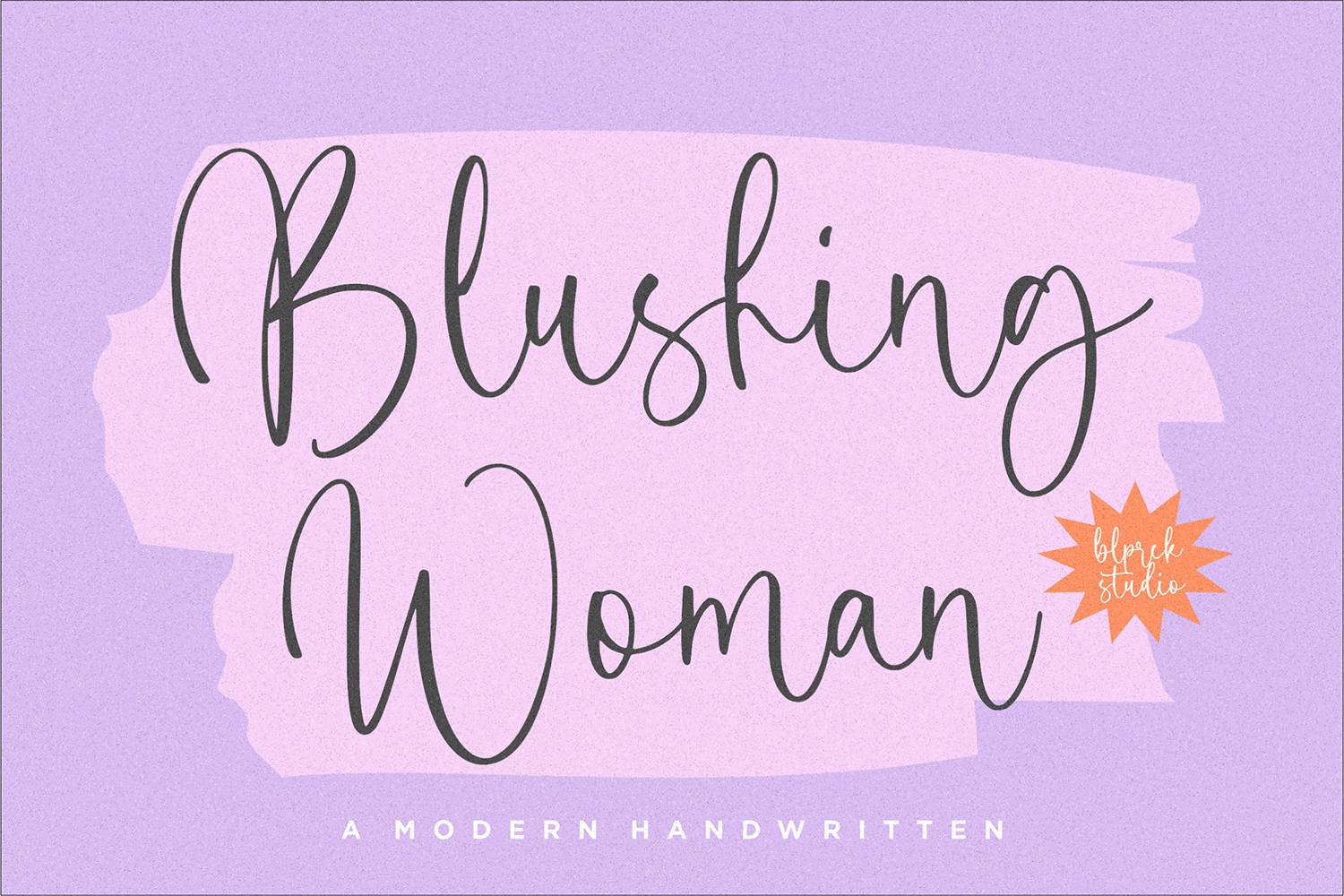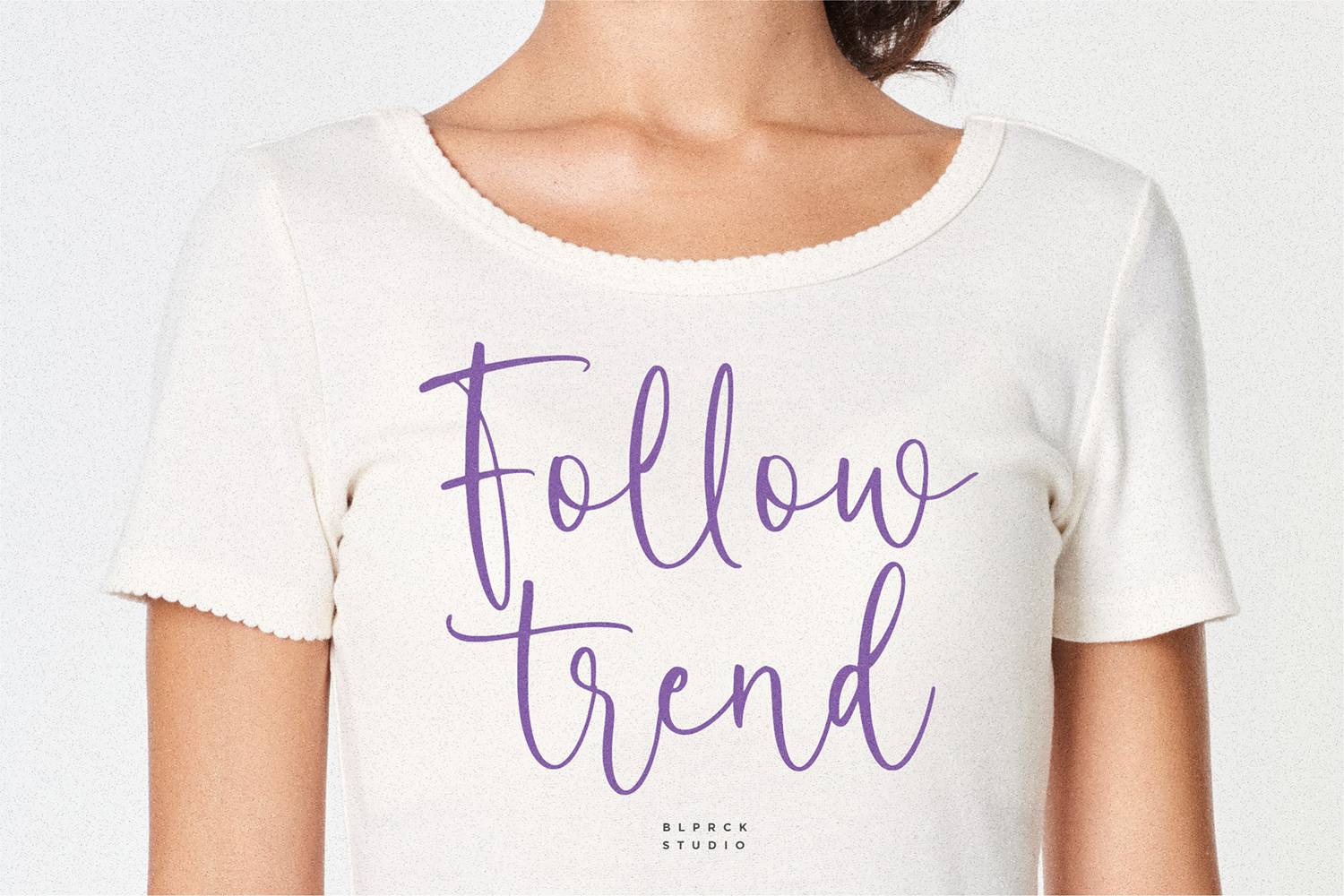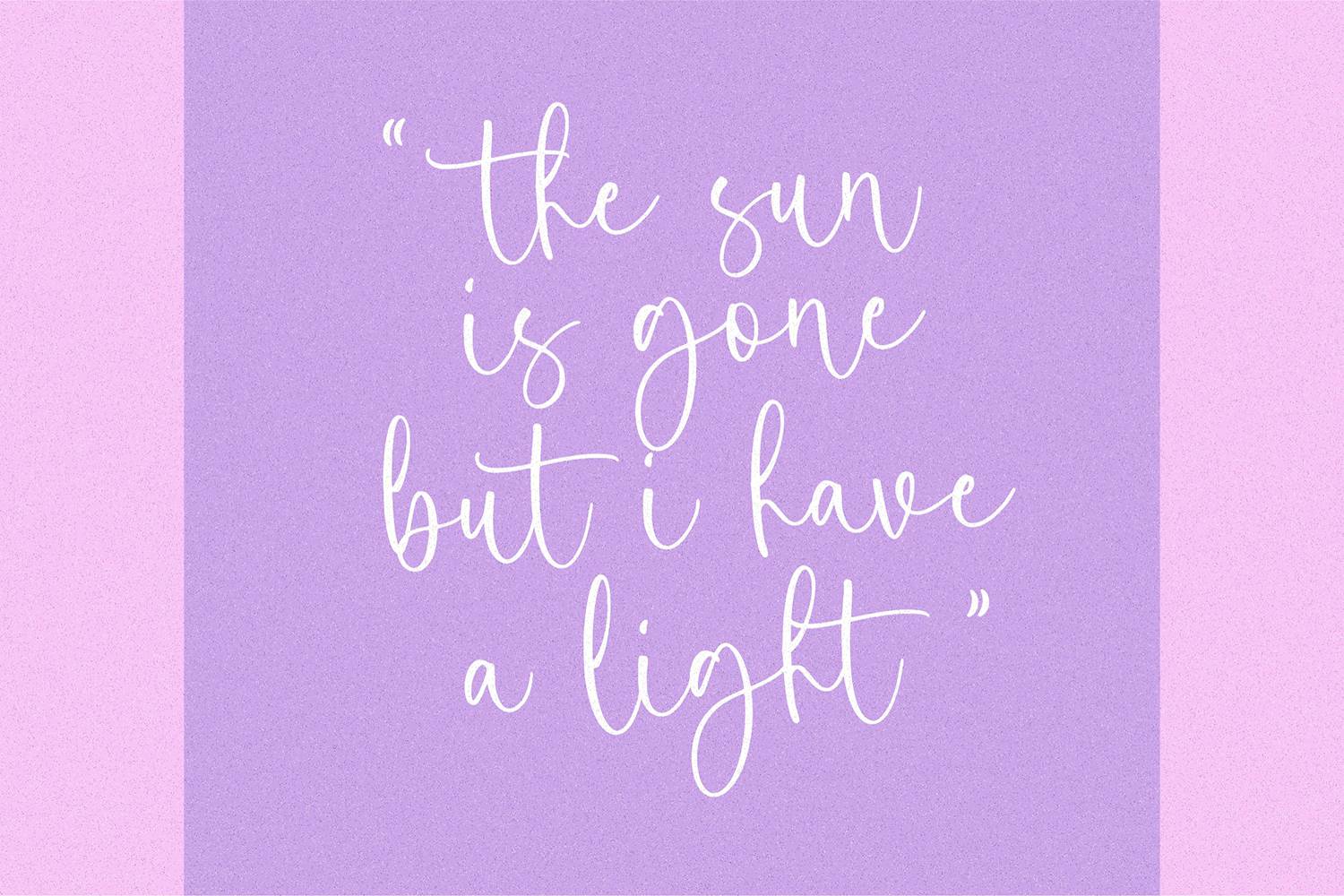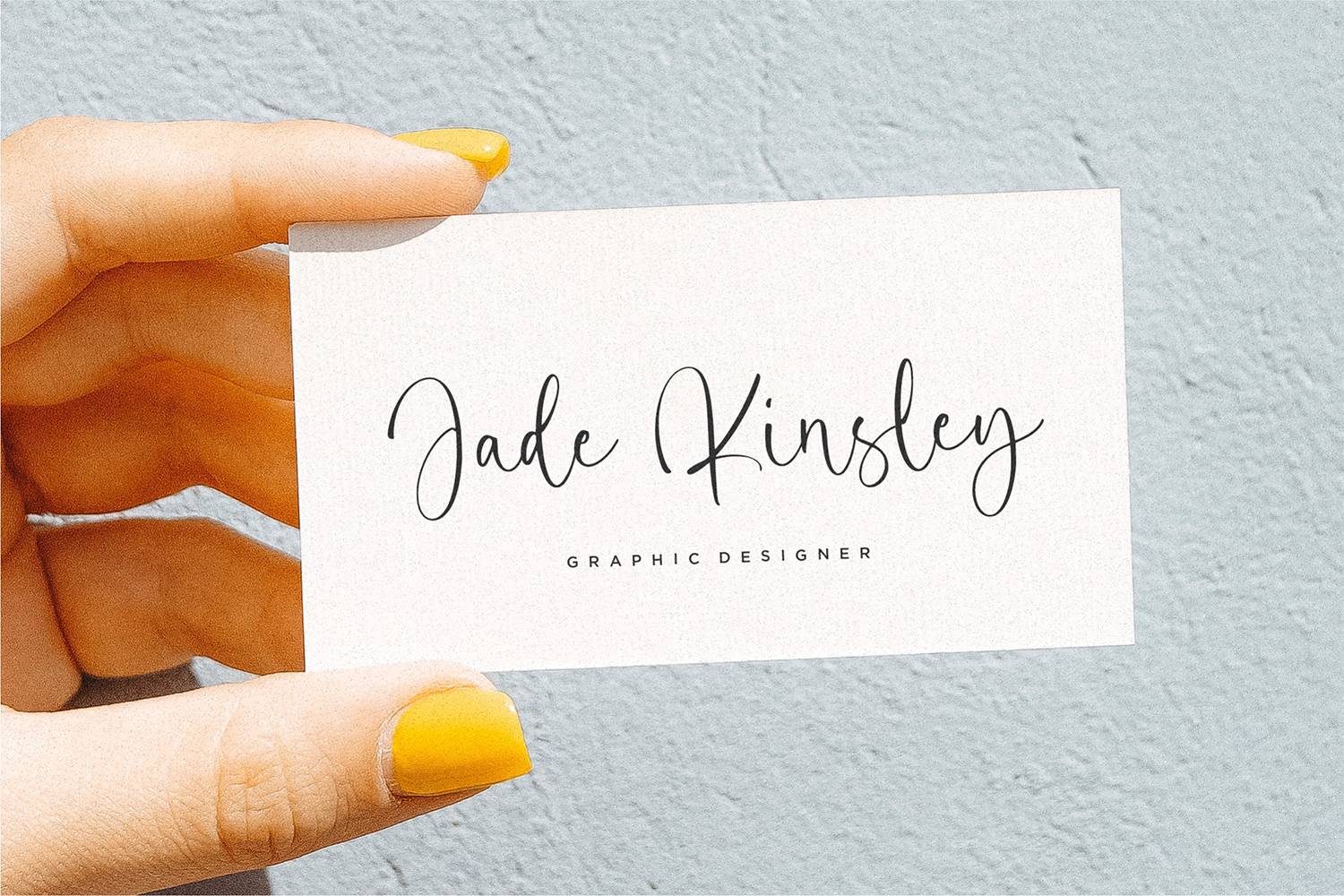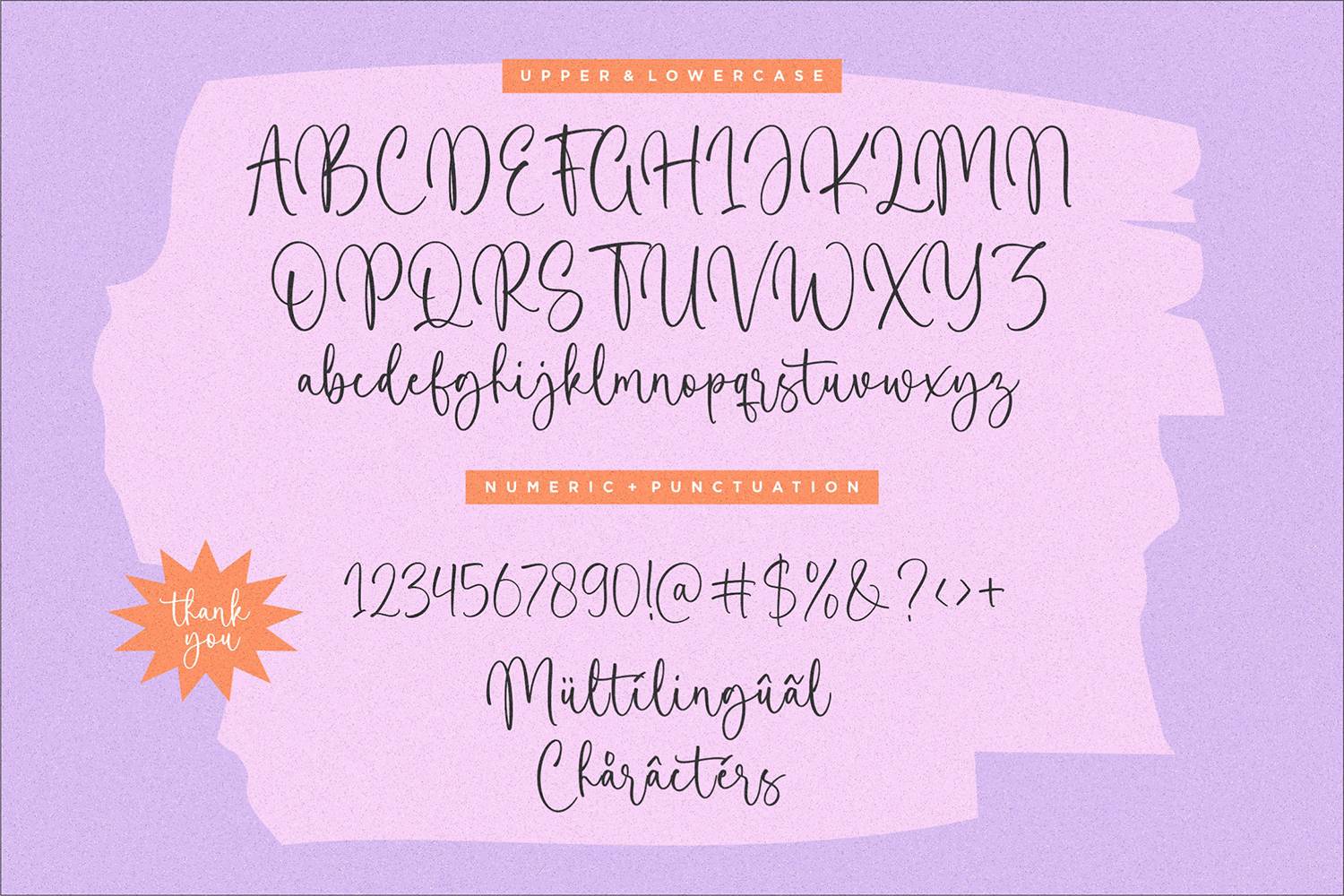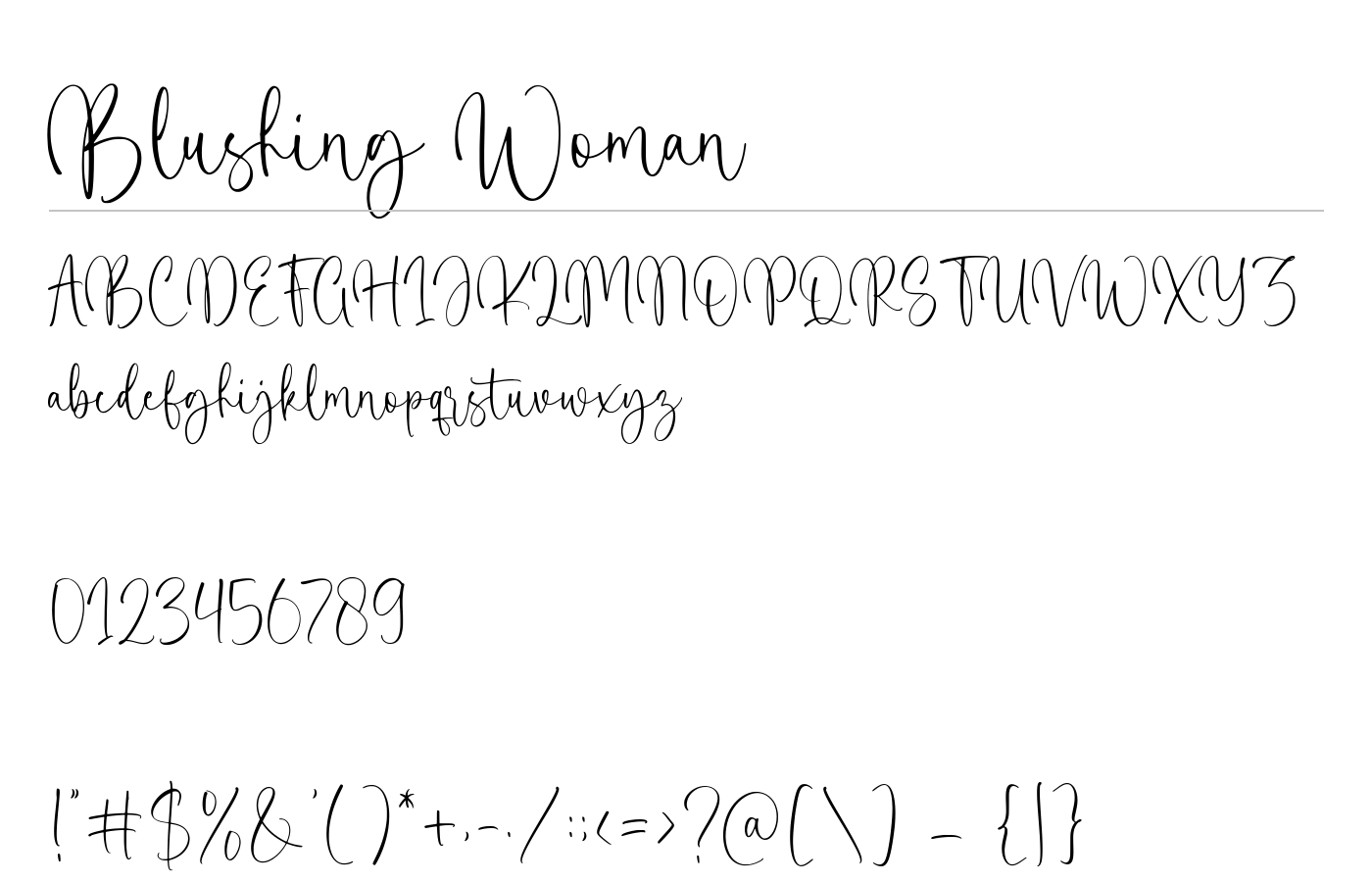
Blushing Woman is a delicate, handwritten script font characterized by thin, flowing strokes and a playful, feminine style. Its tall x-height and lightly condensed letterforms give it an elegant yet approachable feel, making it ideal for personal branding, wedding invitations, and other creative projects that seek a charming and intimate touch. The font’s weak contrast and casual curves enhance its handwritten authenticity, perfect for conveying warmth and creativity in both digital and print designs.
Blushing Woman Font
About Blushing Woman Font